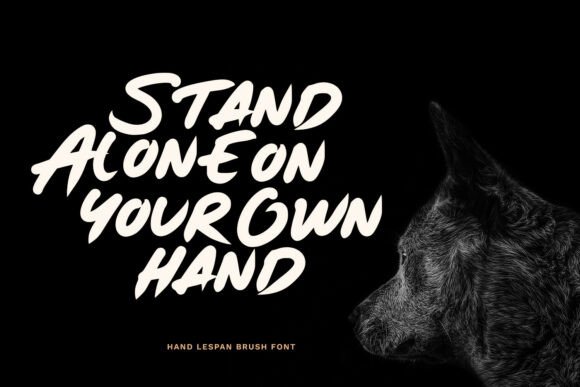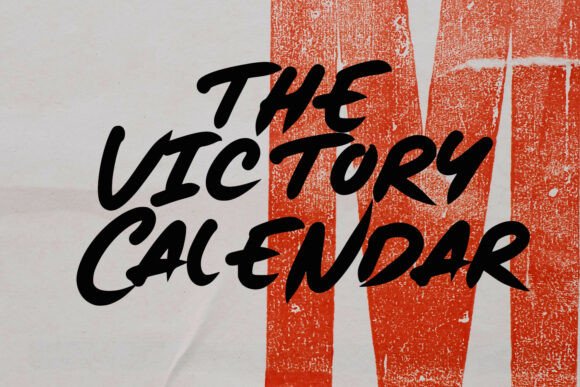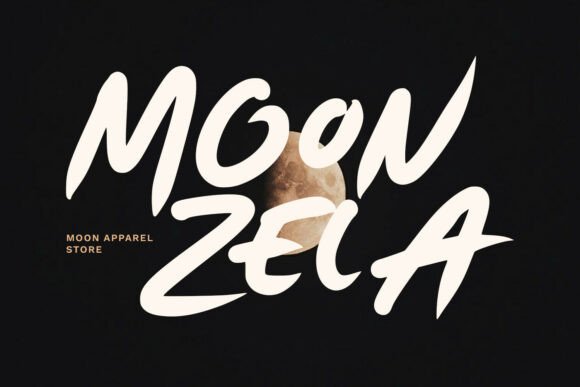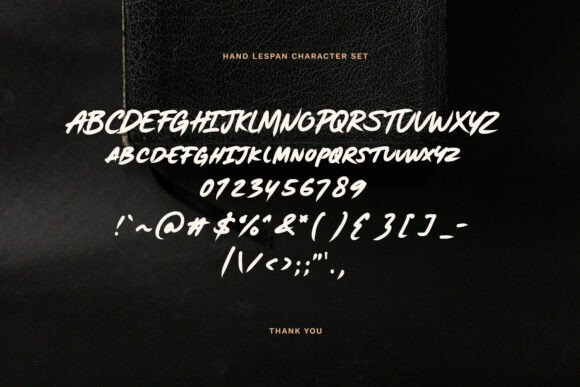
Introducing Hand Lespan: The Energetic Brush Font for High-Impact Designs
In the world of typography, fonts play a crucial role in conveying the tone and personality of a brand or design. For designers and crafters looking to add a bold and dynamic touch to their work, Hand Lespan is an exciting new font that embodies energy, movement, and confidence. This brush font is specifically designed to deliver high-impact visuals with a raw, expressive feel that’s perfect for a variety of applications.
The Inspiration Behind Hand Lespan
Hand Lespan is inspired by the concepts of movement and raw expression. Its creator aimed to capture the essence of speed, power, and boldness in a font that would translate seamlessly across various mediums. From sports branding to social media designs, Hand Lespan brings a level of dynamism and intensity that’s hard to ignore.
Key Features of Hand Lespan
- Energetic Brush Strokes: Hand Lespan is built from fast, bold, and powerful hand strokes that give it a unique, brush-like texture.
- Dynamic Texture: The font features a dynamic brush texture that adds a layer of authenticity and rawness to any design.
- High-Impact Visuals: With its bold and expressive letters, Hand Lespan is designed to grab attention and deliver high-impact visuals.
- Versatility: This font is versatile and can be used across a range of applications, from sports branding and posters to apparel, logos, headlines, music covers, and social media designs.
Hand Lespan is a perfect fit for designers and crafters who want to add a strong and energetic vibe to their work. Whether you’re creating a brand identity for a sports team, designing a poster for a concert, or crafting a logo for a new business, this font has the potential to elevate your designs and make them stand out.
Use Cases for Hand Lespan
The versatility of Hand Lespan makes it suitable for a wide range of projects, including:
- Sports Branding: Use Hand Lespan to create bold and dynamic logos, jerseys, or promotional materials for sports teams.
- Posters and Flyers: Add a touch of energy and excitement to your posters and flyers with this impactful font.
- Apparel: Design eye-catching t-shirts, hoodies, or hats with Hand Lespan’s bold and expressive letters.
- Logos and Icons: Create memorable logos and icons that convey confidence and strength.
- Music Covers and Social Media: Use Hand Lespan to create engaging music covers, social media posts, or advertisements that demand attention.
Why Choose Hand Lespan?
With so many fonts available, why choose Hand Lespan? Here are a few compelling reasons:
- Unique Style: Hand Lespan offers a distinctive style that’s hard to find in other fonts.
- Ease of Use: This font is easy to use and can be integrated seamlessly into various design projects.
- High-Quality Design: Hand Lespan is designed with high-quality craftsmanship, ensuring that it looks great in any application.
Hand Lespan is more than just a font – it’s a design statement. With its energetic brush strokes, dynamic texture, and bold personality, this font is perfect for designers and crafters looking to add a touch of excitement and confidence to their work. Whether you’re working on sports branding, posters, apparel, logos, or social media designs, Hand Lespan is an excellent choice for anyone seeking to make a strong visual impact.